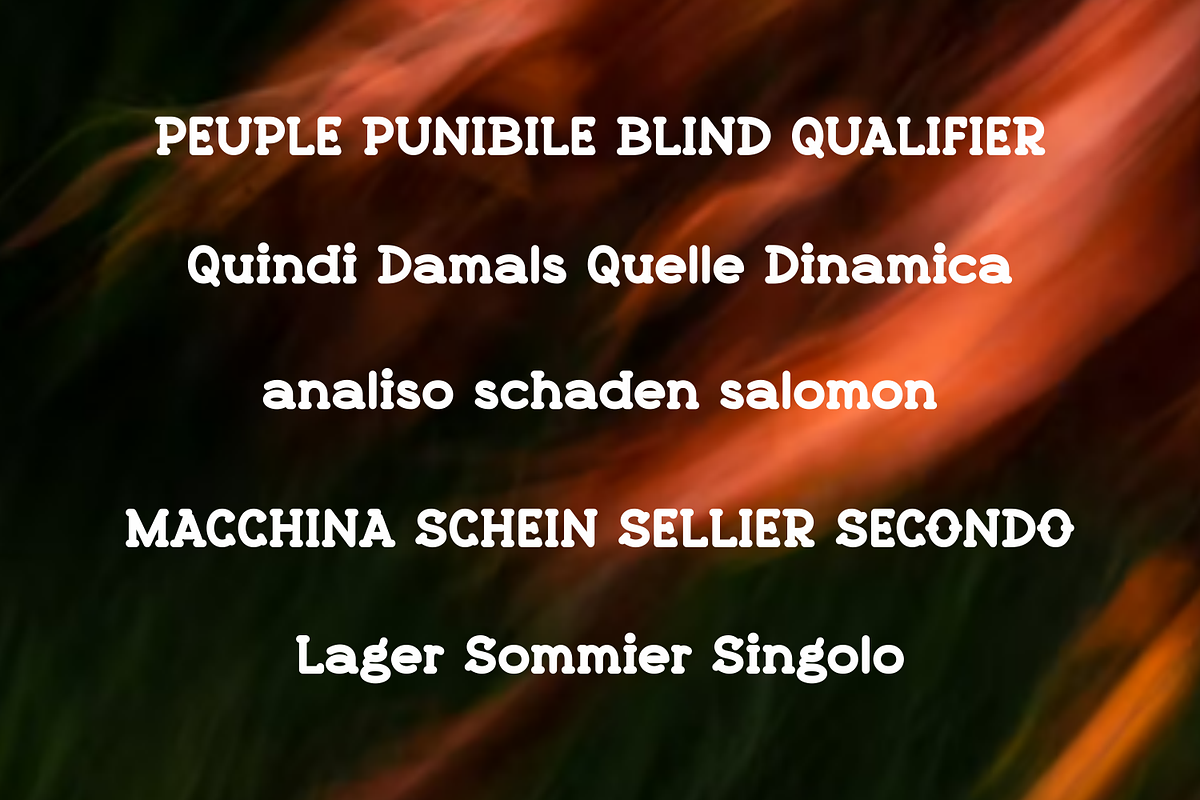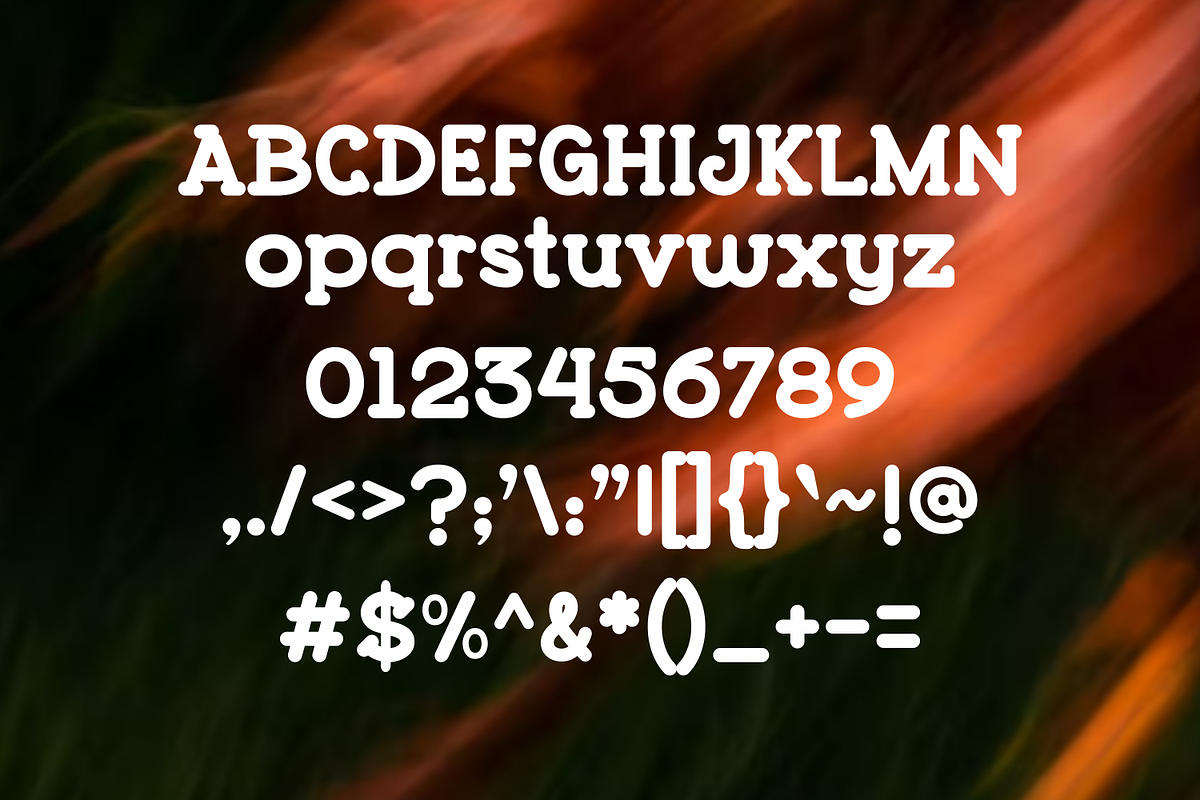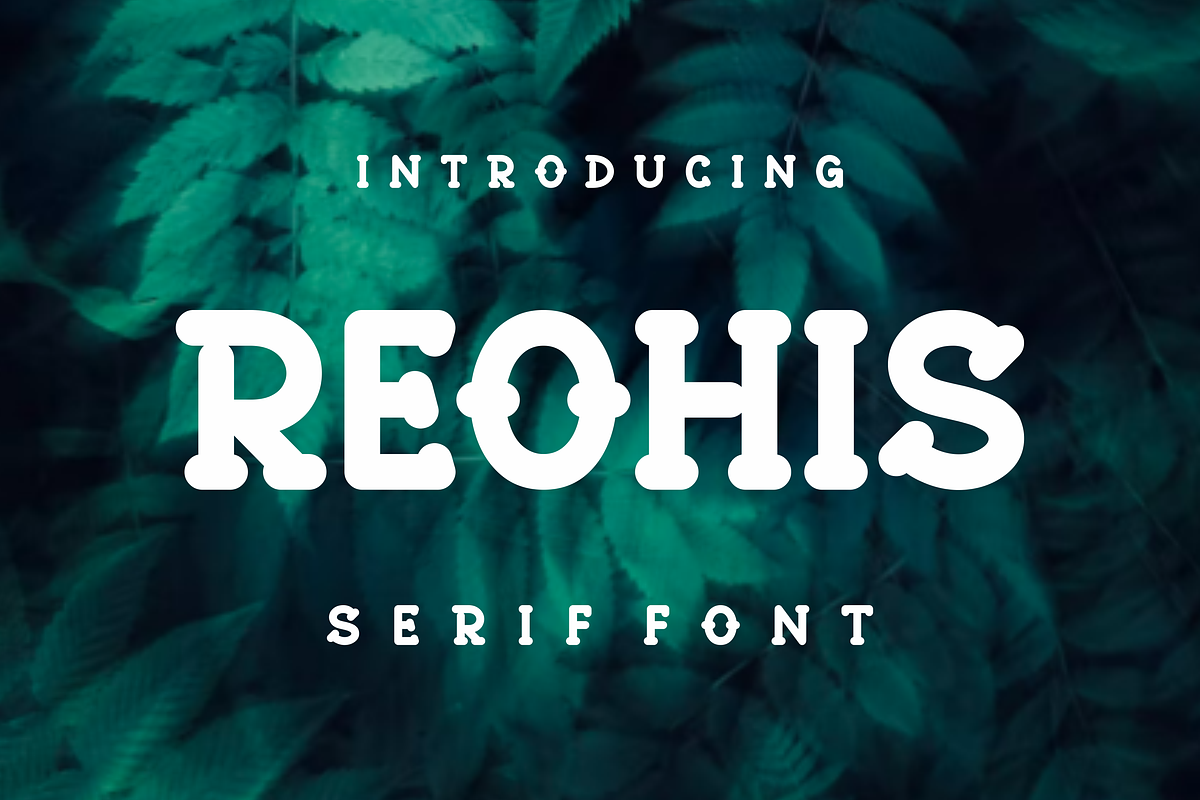
Reohis
Reohis Perfectly suited on print/screen. it’s perfect for Branding, name card, poster, logo, magazine, cover, banner, t-shirt and headers, or even large-scale artwork.